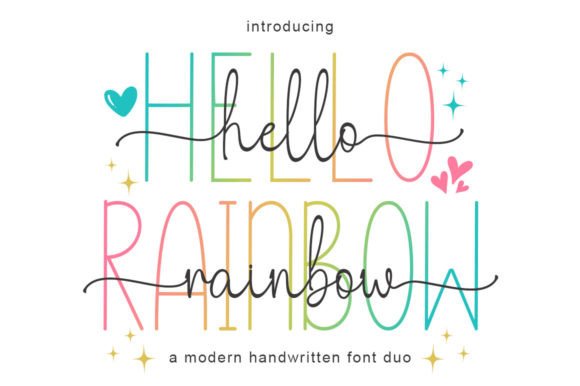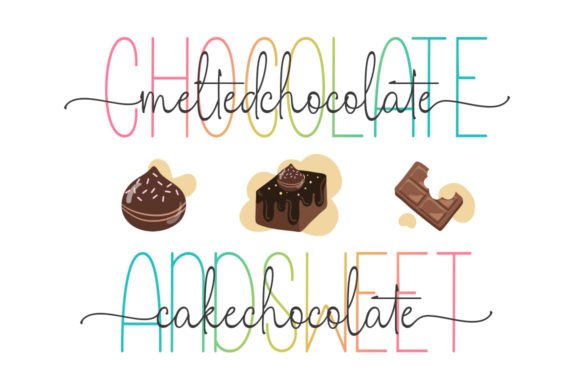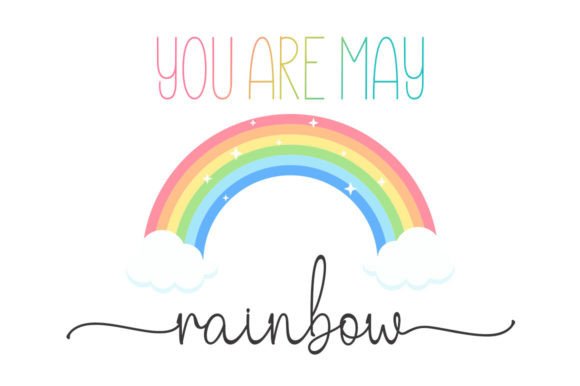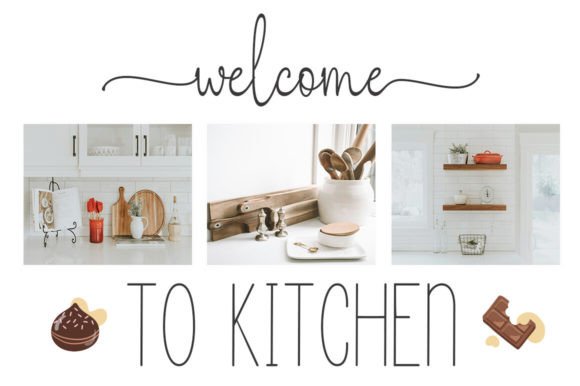
Hello Rainbow Duo is a versatile and stylish font pairing that blends a clean sans serif with an elegant script. Perfect for a wide range of projects, it adds charm whether you’re designing a heartfelt greeting card, crafting an eye-catching title, or creating personalized artwork.
With full PUA encoding, all glyphs and ligatures are easily accessible, making customization effortless and integration seamless across any design platform. Romantic, modern, and highly adaptable, Hello Rainbow Duo is the perfect choice to elevate all your creative projects.